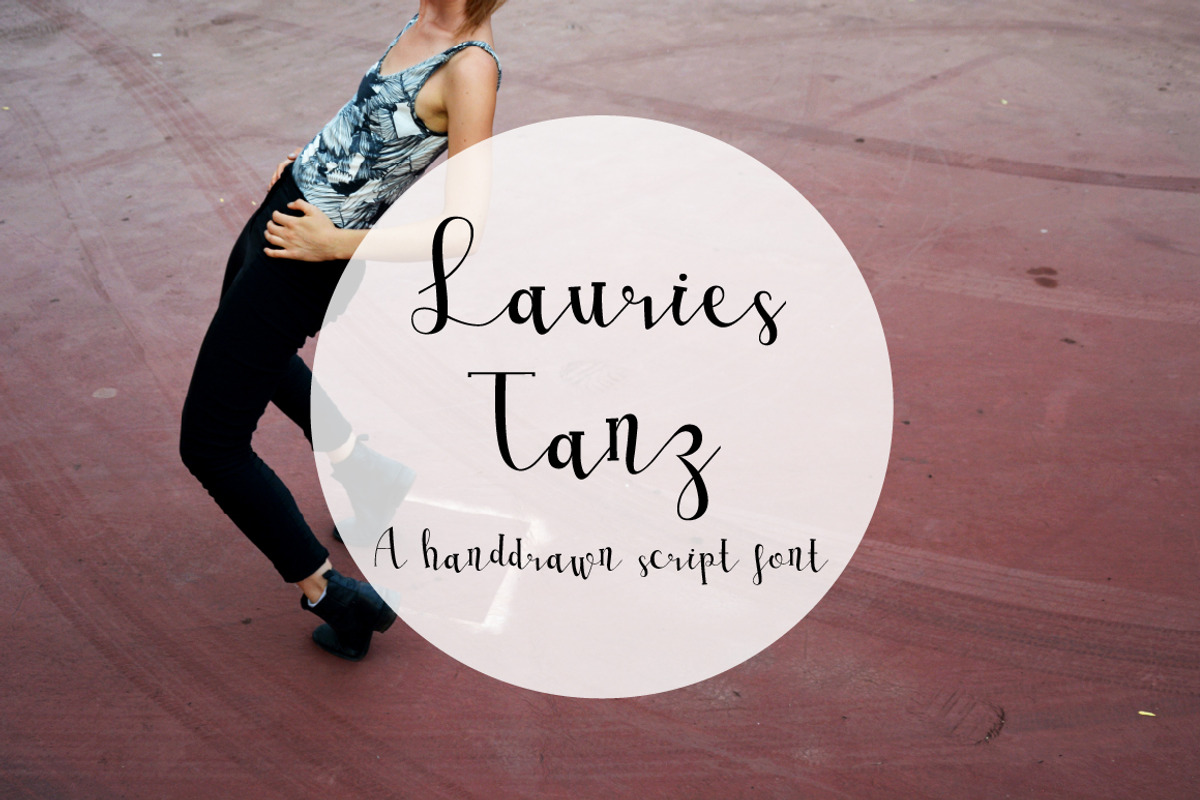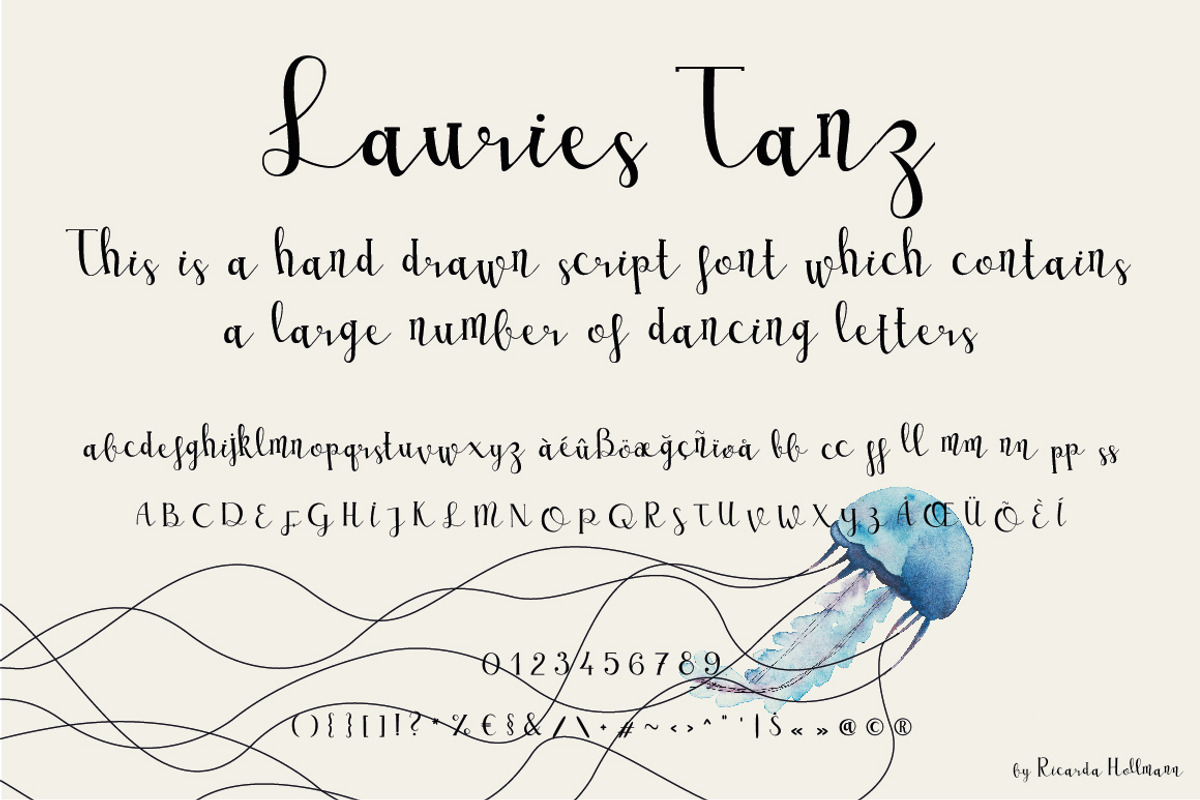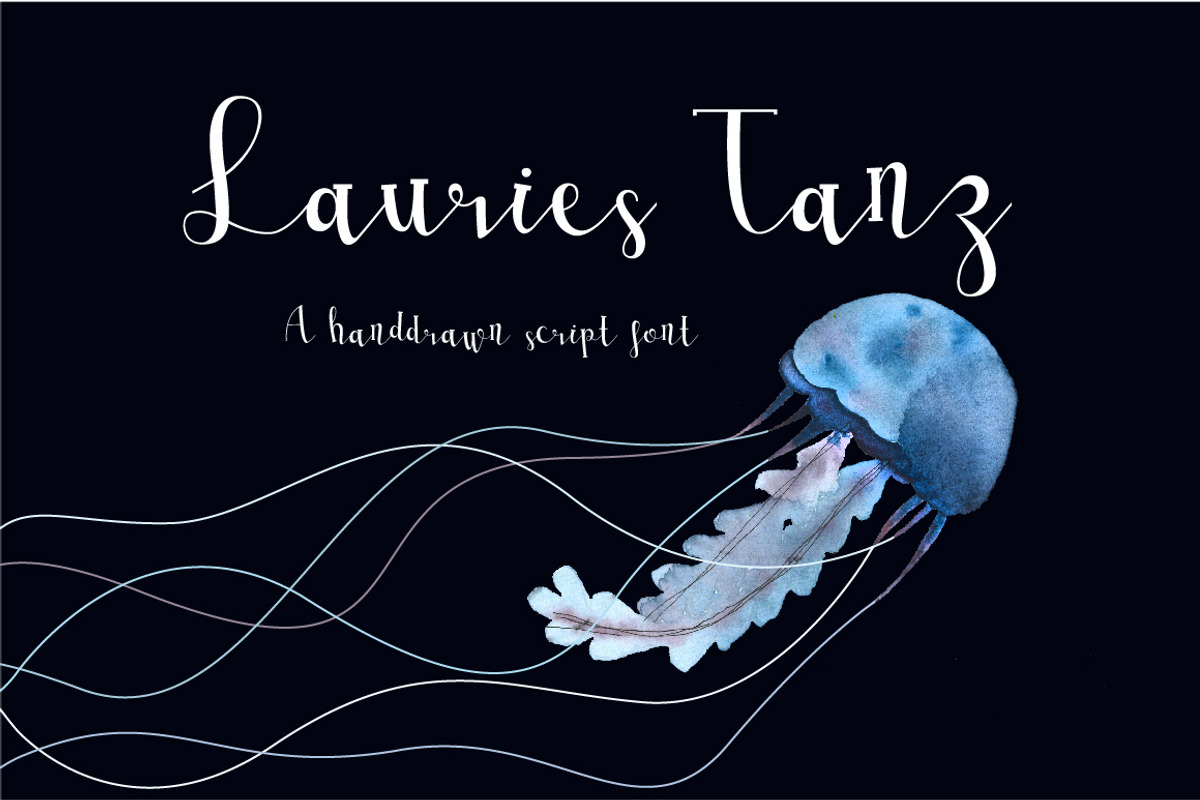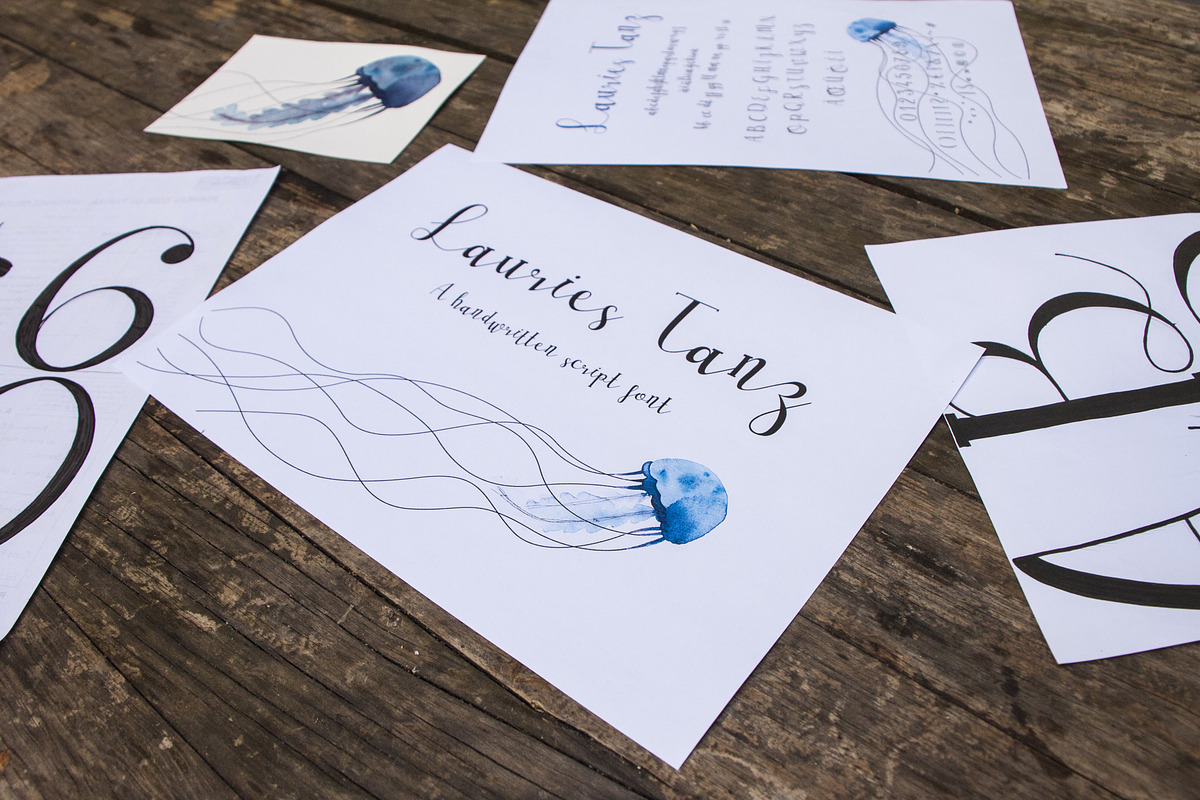
Lauries Tanz Script Font
Lauries Tanz Script Font by RicaHollmann is a font selected for branding, posters, packaging, typography.
- This is an entirely hand drawn script font which contains a large number of dancing letters & signs so that it fulfills everyone's needs.
Why Lauries Tanz Script Font is worth a look
Lauries Tanz Script Font by RicaHollmann fits naturally into Branding, posters, packaging, typography.